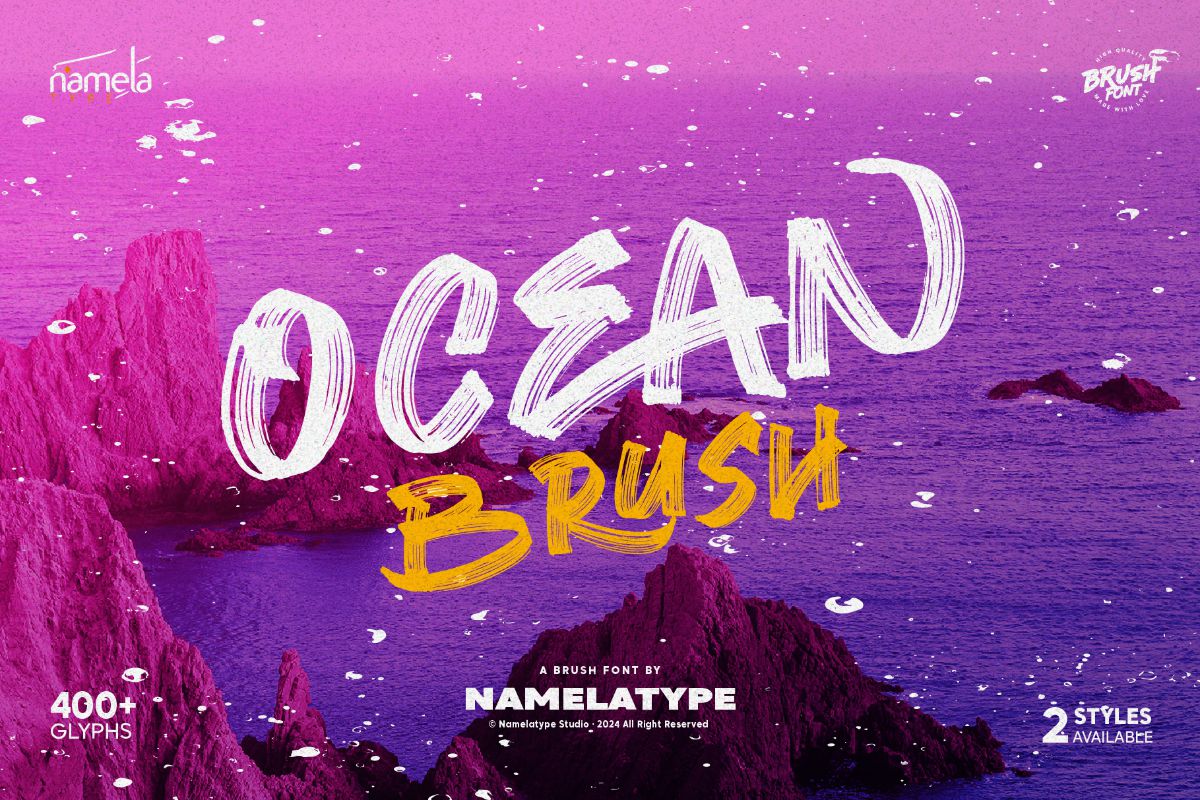
Ocean Brush Solid
Ocean Brush Font - A Fluid Handwritten Brush Typeface for Commercial & Broadcast Some typefaces describe themselves instantly. Ocean Brush Fluid Handwritten Brush Font is one of them—the moment it appears in a layout, you can feel the movement. Inspired by the rhythm of waves, this expressive brush font captures a balance between energy and calm, translating natural motion into modern typography. For designers seeking work that feels alive rather than constructed, Ocean Brush delivers a dynami